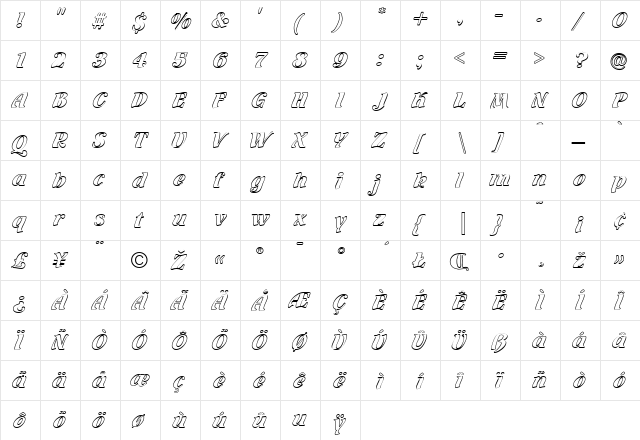
RothsteinOutline Regular
RothsteinOutline is built around its visual character rather than neutral utility — its distinctive forms are designed to make an impression at display sizes.
Font Pairing: Pair with a clean neutral sans-serif for body copy to let RothsteinOutline's character lead without overwhelming the composition.
Pro Tip: Treat RothsteinOutline as the centrepiece of your typographic hierarchy. One strong heading set in a decorative face can carry an entire layout.